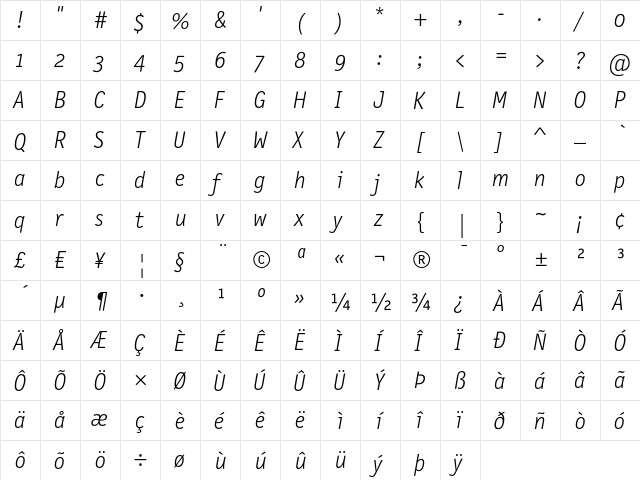
LetterGothicText LightItalic
Design Context for LetterGothicText Typeface
LetterGothicText has the quiet confidence of well-executed sans-serif typography: versatile, unobtrusive, and dependable at any size. The slanted form adds forward momentum and visual energy. The delicate stroke weight brings airiness and refinement to layouts.
A natural fit for high-end product packaging, luxury brand identities, and refined web typography.
Font Pairing: Pair LetterGothicText with a medium or bold serif for headlines — the weight contrast creates an elegant, high-end feel.
Pro Tip: Use LetterGothicText with generous tracking and line-height for the most luxurious effect — light sans-serifs reward spacious, considered layouts.